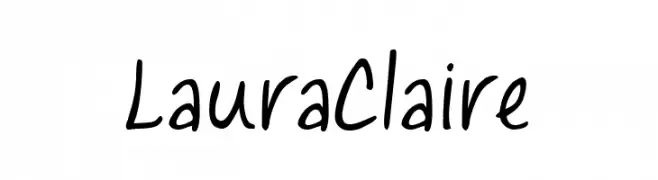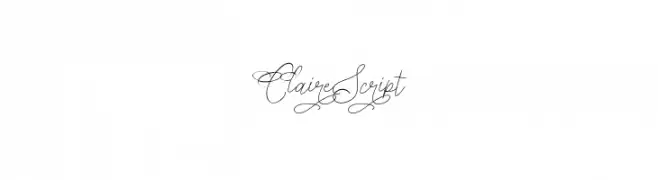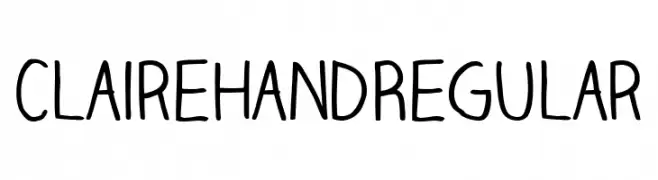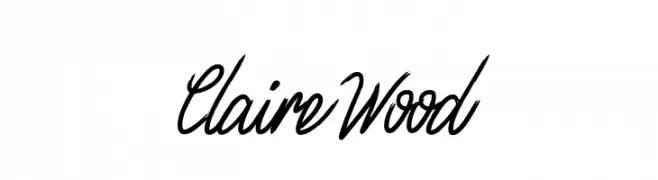
A playful, casual handwritten font with tall, narrow letterforms and consistent strokes.
An elegant, flowing script font with intricate loops and bold uppercase letters.
A graceful and elegant script font with flowing cursive letters and ornate flourishes.
A playful, casual handwritten font with smooth, flowing lines.
An elegant script font with flowing, interconnected letters and a handcrafted feel.
A playful, casual handwritten font with smooth, rounded strokes.
A bold, playful handwritten font with rounded letterforms.
A fluid and elegant script font with dynamic cursive letterforms.
A fluid, elegant script font with a natural handwritten style.
Playful handwritten font with rounded edges.